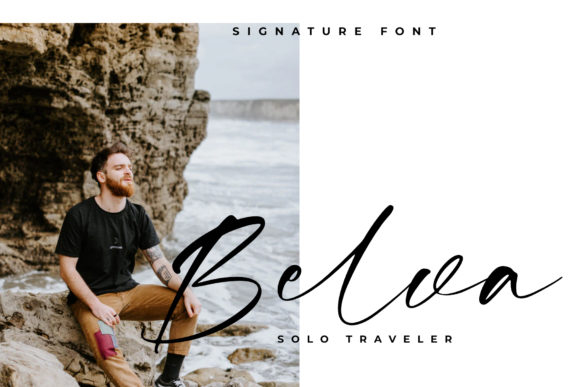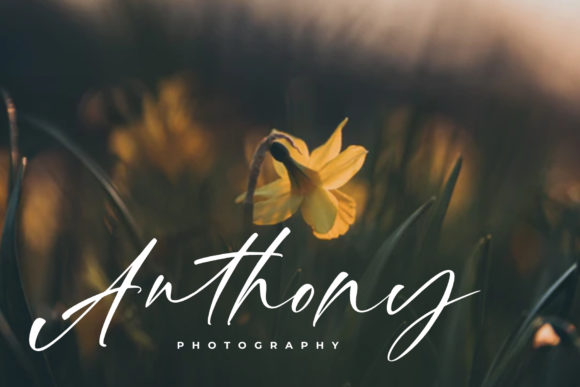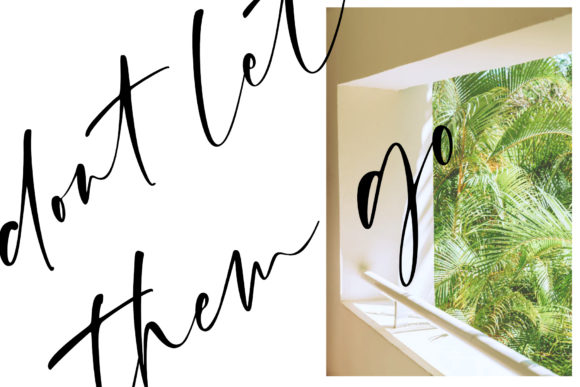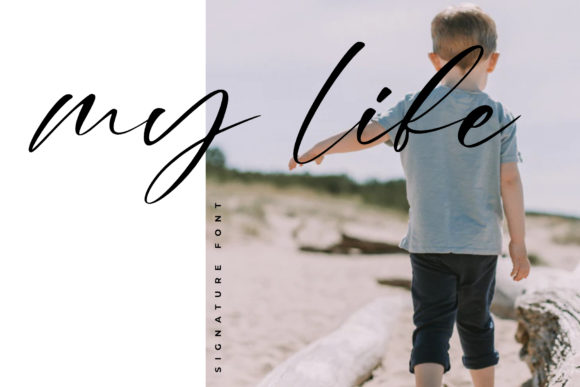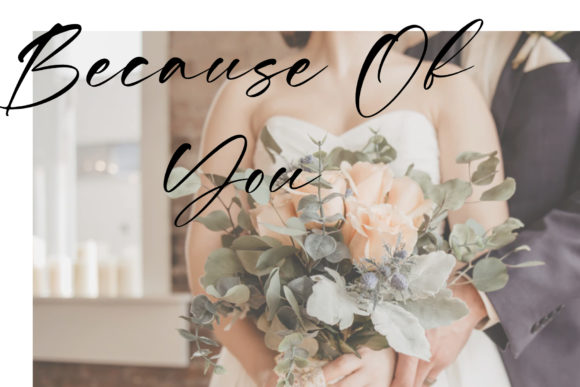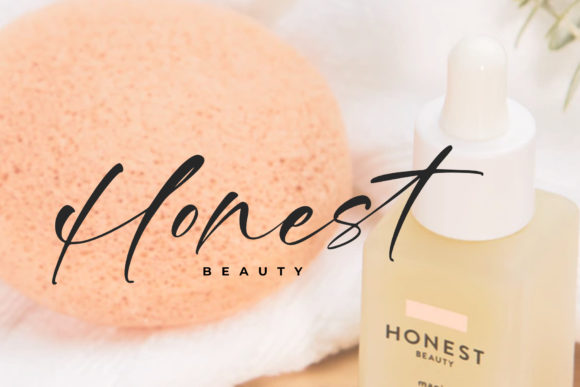
Introducing Gilliany Font: Elevate Your Designs with Elegance and Magic
In the world of typography, a well-crafted font can make all the difference in creating visually stunning designs. For designers and crafters seeking to add a touch of sophistication and whimsy to their projects, Gilliany Font is an exceptional choice. This magical handwritten font is carefully crafted to bring an air of elegance and uniqueness to your designs, setting them apart from the ordinary.
The Charm of Gilliany Font
Gilliany Font is a beautiful, handwritten typeface that exudes charm and character. Its elegant strokes and flowing lines are meticulously designed to give your designs a personal and bespoke feel. Whether you’re working on a branding project, crafting invitations, or creating digital content, Gilliany Font is versatile enough to complement a wide range of design needs.
Key Features of Gilliany Font
- Magical and Elegant: Gilliany Font combines magical elements with an elegant aesthetic, making it perfect for designs that require a touch of sophistication and wonder.
- Handwritten with Care: Each letter is carefully crafted by hand, giving the font a unique and personal feel that automated fonts simply can’t replicate.
- Versatile: From digital projects like websites and social media graphics to print materials such as brochures, posters, and invitations, Gilliany Font adapts seamlessly to various design contexts.
- Easy to Read: Despite its elegant and somewhat whimsical nature, Gilliany Font remains highly legible, ensuring your message is communicated clearly and effectively.
Gilliany Font is not just a typeface; it’s a tool for creativity. Designers will appreciate its flexibility and the way it can elevate a project’s aesthetic. Crafters, particularly those involved in DIY projects, scrapbooking, and card making, will find Gilliany Font to be a delightful addition to their creative arsenal. It’s perfect for:
- Branding: Create memorable logos and brand identities that stand out.
- Stationery: Design beautiful, one-of-a-kind stationery, including invitations, greeting cards, and letters.
- Digital Content: Enhance your blog posts, social media graphics, and website with a touch of elegance.
- Art and Craft Projects: Add a personal touch to your scrapbooking, journaling, and other craft projects.
How to Make the Most of Gilliany Font
To truly leverage the potential of Gilliany Font, consider the following tips:
- Mix and Match: Combine Gilliany Font with other fonts to create interesting contrasts and hierarchies in your designs.
- Play with Colors: Experiment with different colors and gradients to enhance the magical and elegant feel of the font.
- Embellish with Graphics: Add a personal touch by incorporating illustrations, icons, or other graphic elements that complement the font’s style.
Gilliany Font is more than just a typeface; it’s a creative partner that can help you bring your design visions to life. Its magical, handwritten elegance makes it an excellent choice for anyone looking to add a touch of sophistication and whimsy to their projects. Whether you’re a professional designer or a crafting enthusiast, Gilliany Font invites you to explore new possibilities in typography and design. So, why settle for ordinary when you can create something truly magical with Gilliany Font?